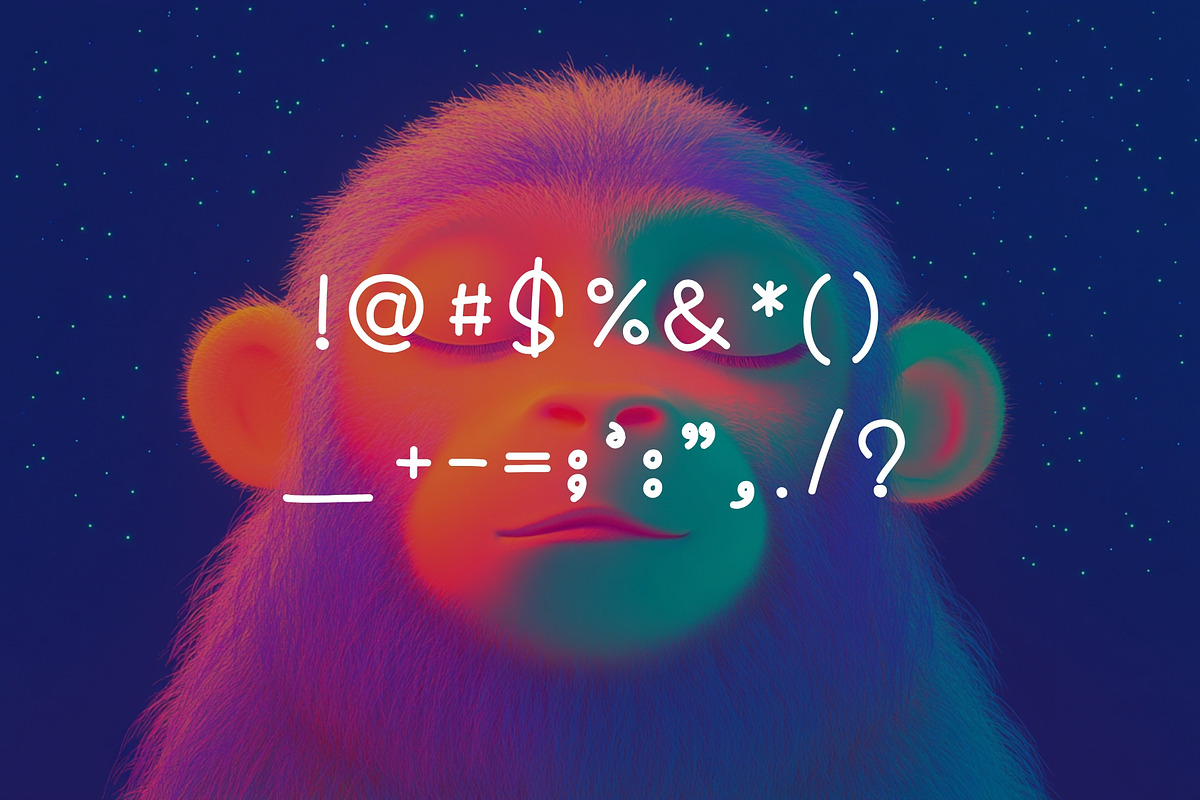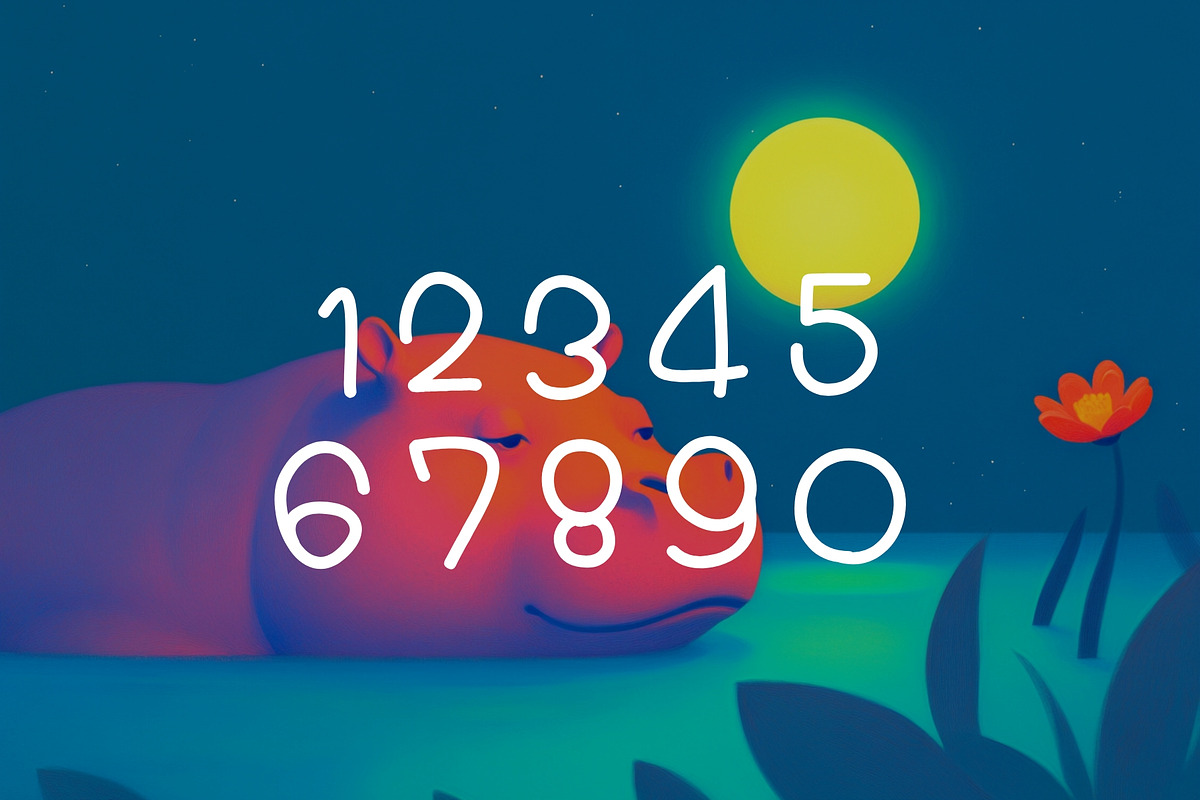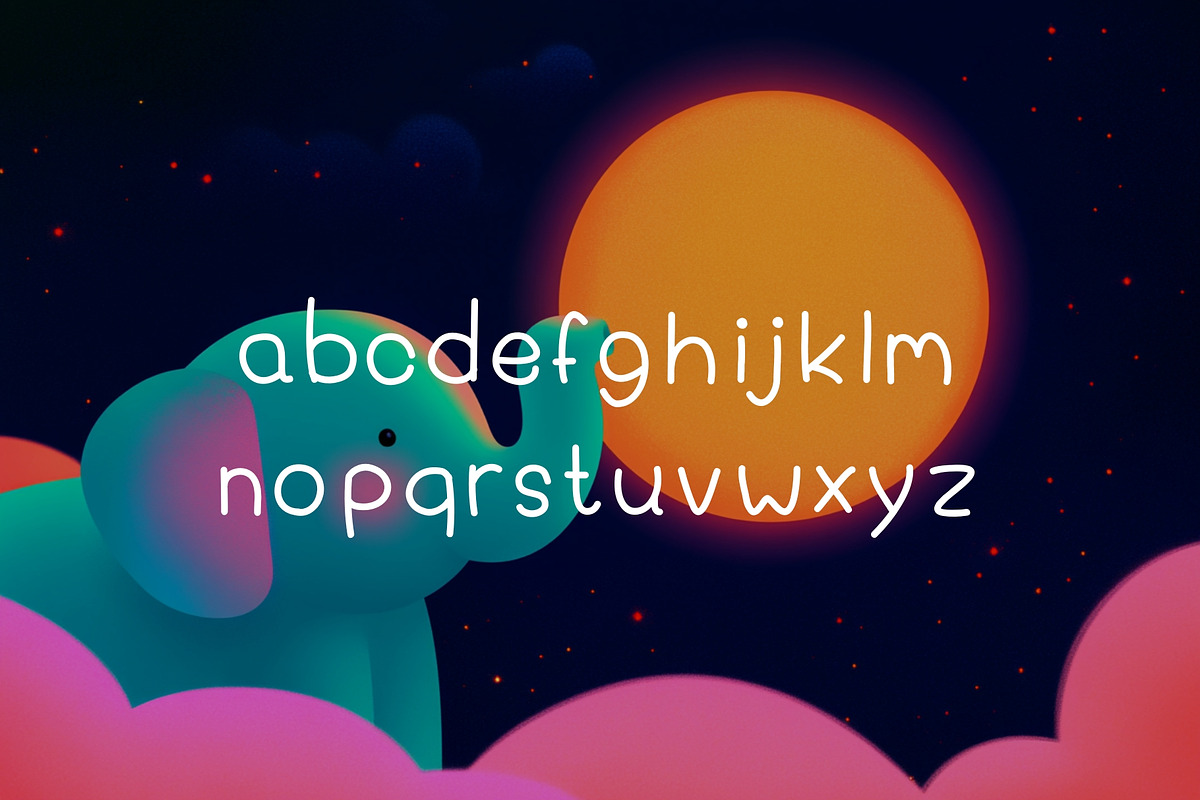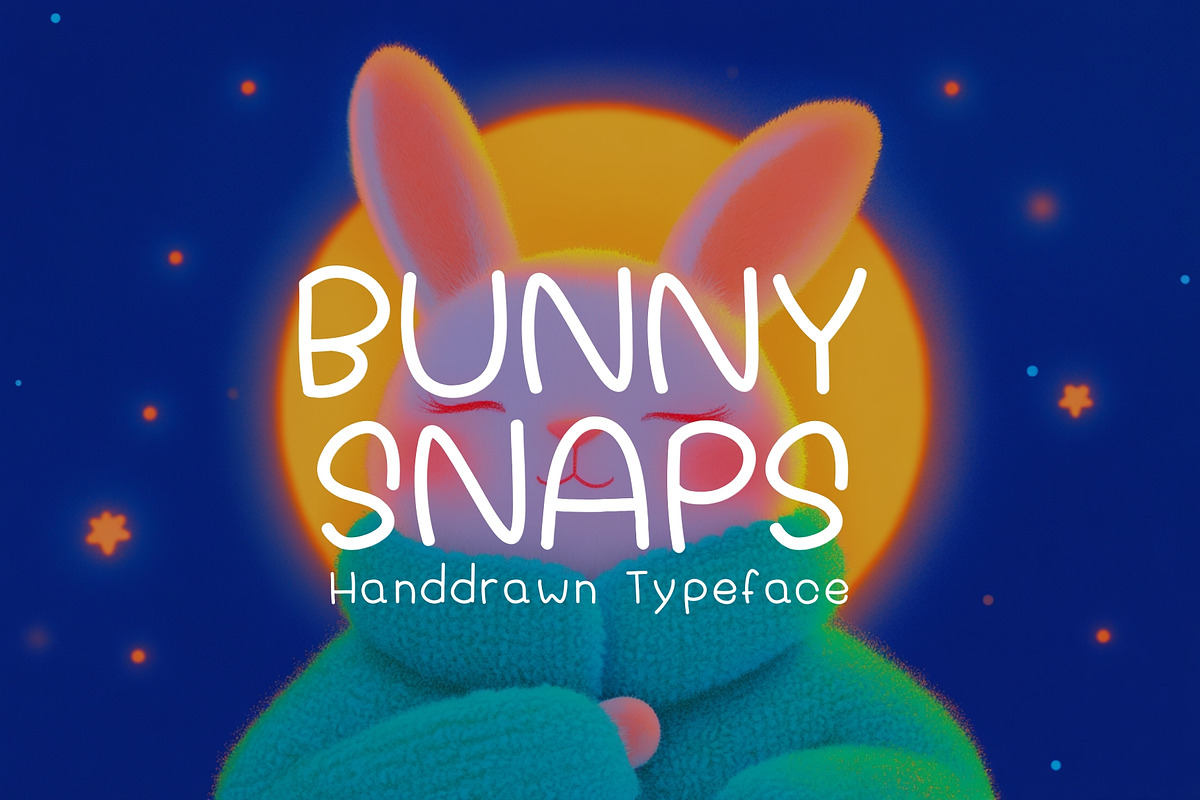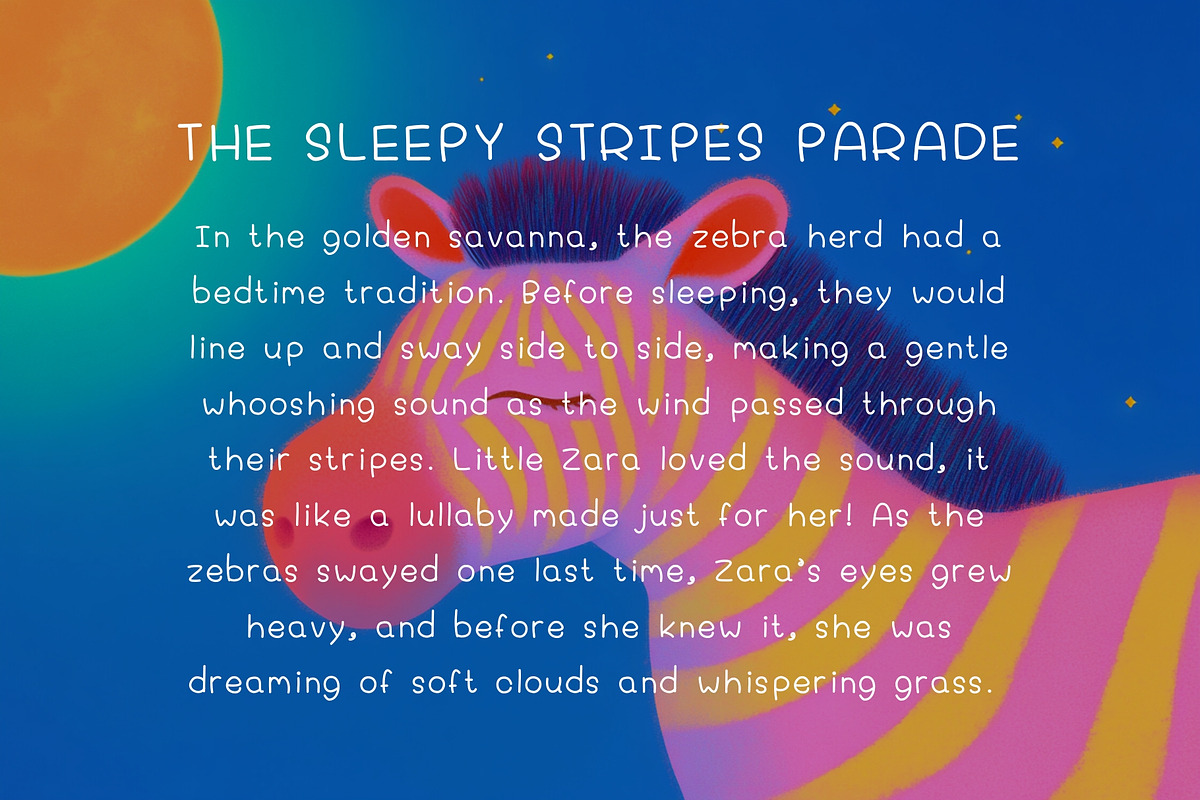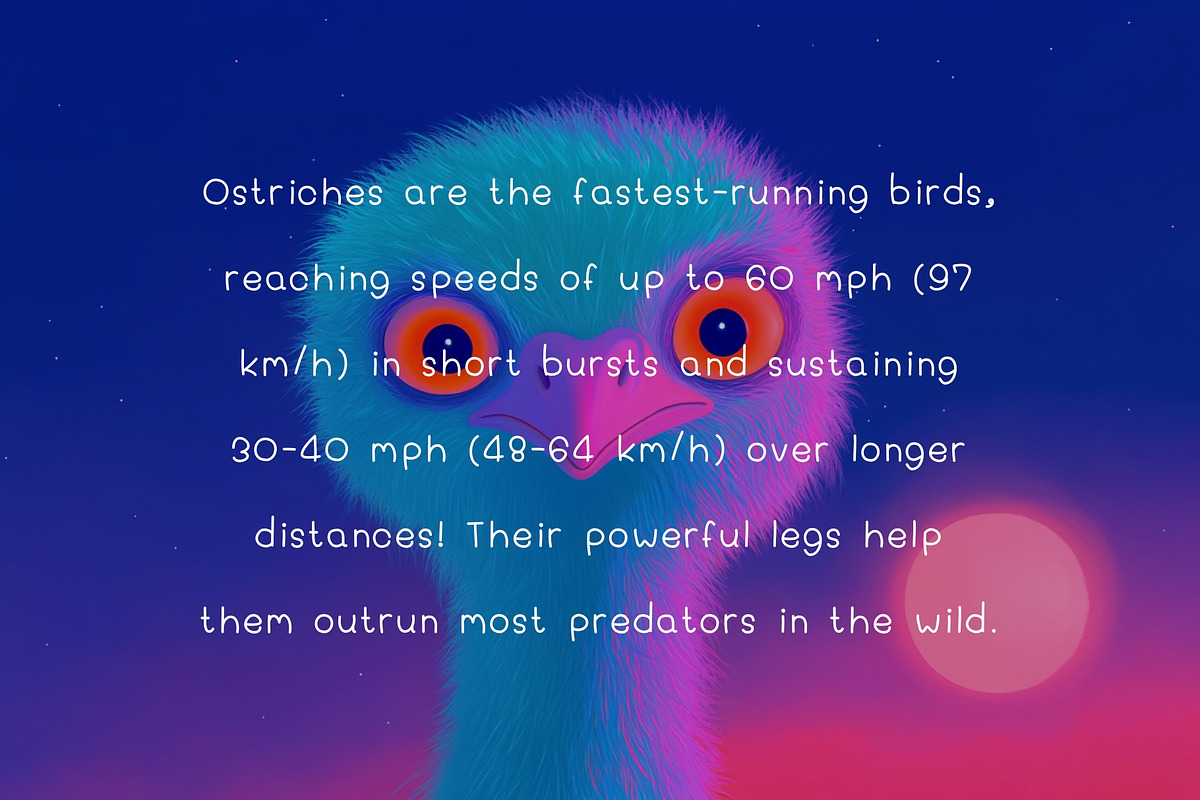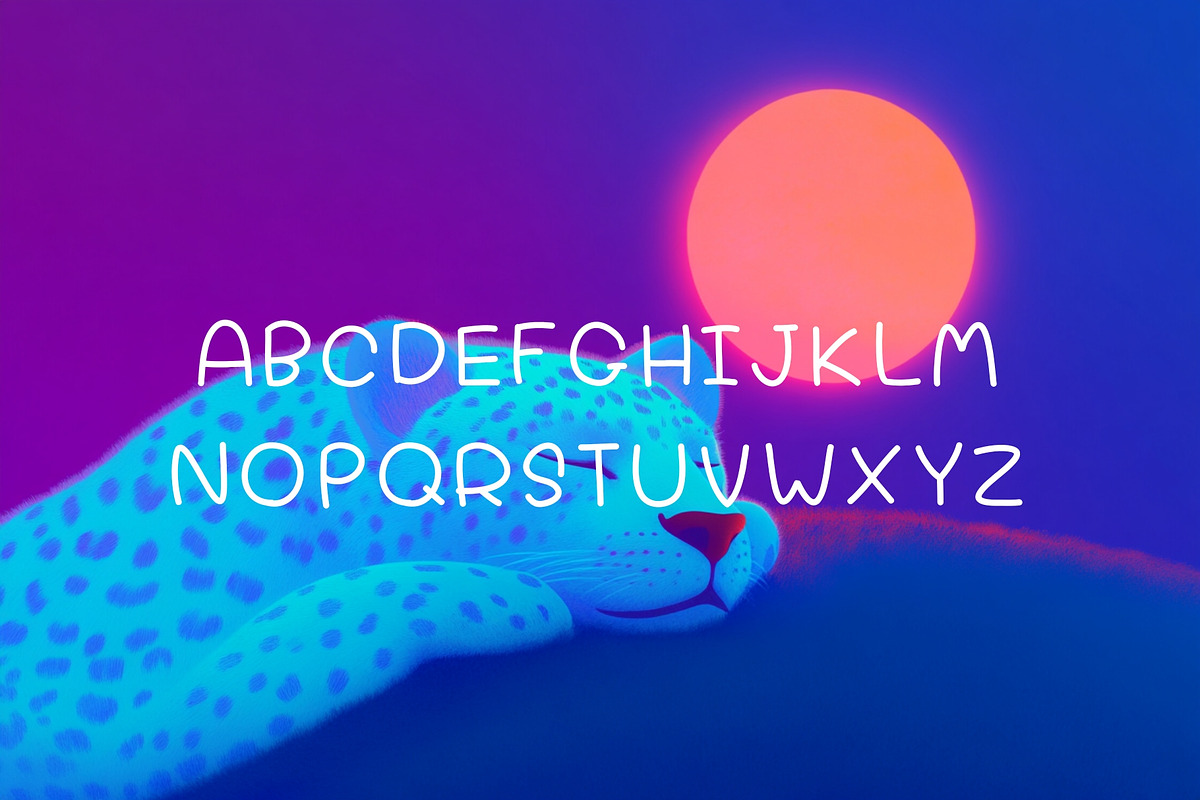
Bunny Snaps - Cute Handwriting Type
Hop into a world of adorable handwriting with Bunny Snaps—a playful, bubbly, and effortlessly cute typeface! With its soft, hand-drawn charm, this font is perfect for adding a warm and friendly touch to any project.
🌸 Perfect for:
- Note-taking & Journals 📝
- School Projects & Teaching Materials 📚✏️
- Kids’ Books & Baby Albums 👶📖
- DIY Crafts & Scrapbooks 🎨
- Invitations, Stickers & More! 🎀
Whether you're a teacher creating fun worksheets, a student decorating your notes, or a parent designing a baby book, Bunny Snaps will add the perfect touch of cuteness to your designs. With its soft curves and friendly strokes, this font makes every word feel cozy, cheerful, and fun!
Let your words hop to life with Bunny Snaps!